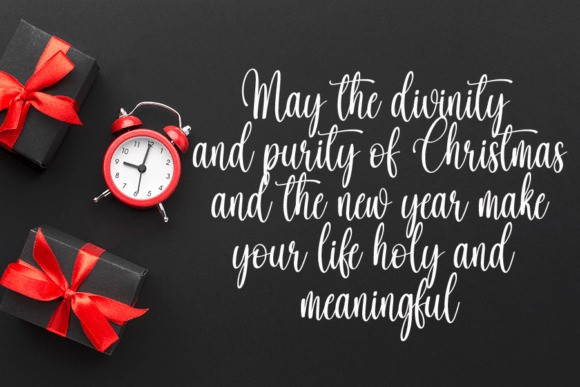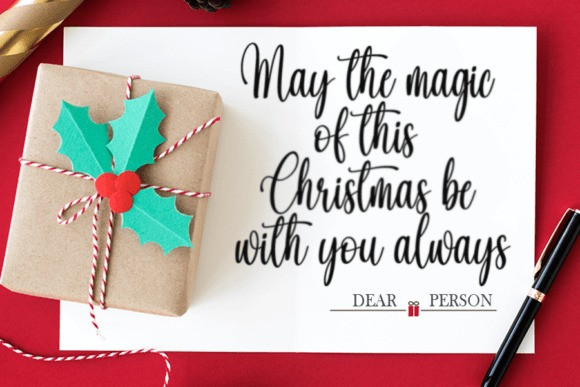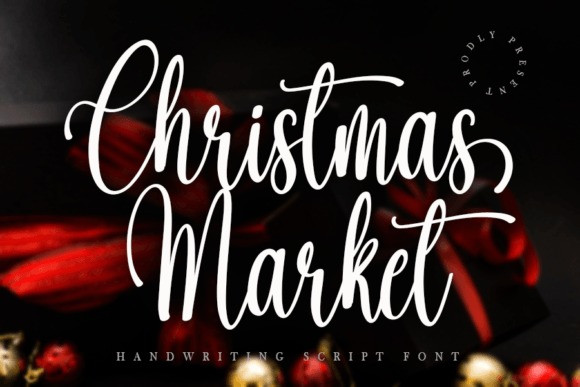
Christmas Market Script Font
Christmas Market Script Font is a gorgeous handwritten font that will make your work stand out through its elegant and curvy lines. It is perfect for product packaging, branding projects, magazine covers, social media posts, weddings, or anything that needs a sweet, handwritten touch.